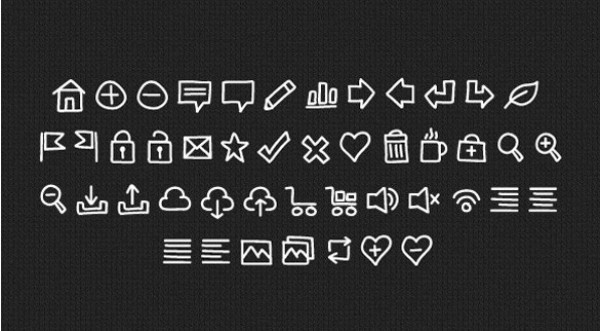
99 Hand Drawn Web Font Icons Set admin 2014-08-17 Icons Comments 88 views 99 Creative hand drawn icons converted to a web font – a great step to make your website retina ready. Click here to free download this file !